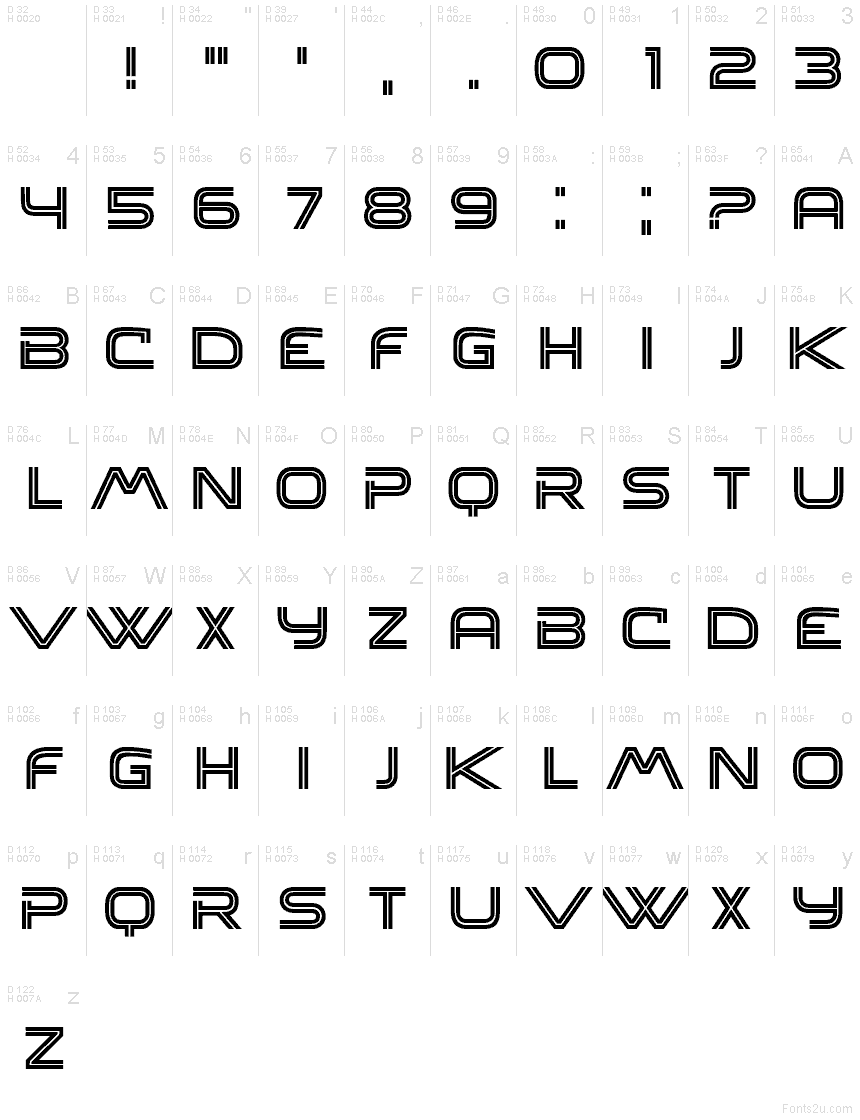
Remscheid Neon Regular
Remscheid Neon font by Vladimir Nikolic is a free techno display typeface that glows with retro-futuristic energy. Built on the Remscheid family, its tubular outlines, tight curves, and double-line strokes mimic real neon tubing, giving text a cool, electric hum even on a flat screen. The letters feel engineered yet playful, with clean geometry that keeps all that glow-looking detailing from turning into clutter.
Using Remscheid Neon, you can light up nightclub posters, synthwave album covers, esports branding, sci-fi event flyers, tech conference visuals, and bold social media graphics. This free font shines at large sizes where the parallel strokes and hollow centers really read like illuminated signage. Pair it with a simple, neutral sans serif for body text and keep backgrounds dark or gradient for a convincing neon effect.